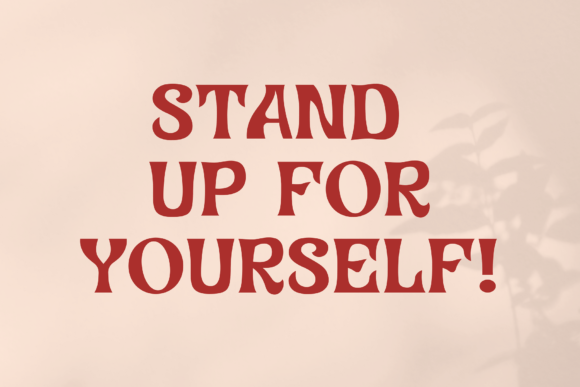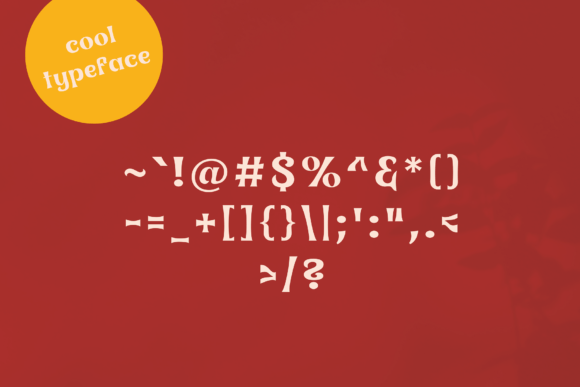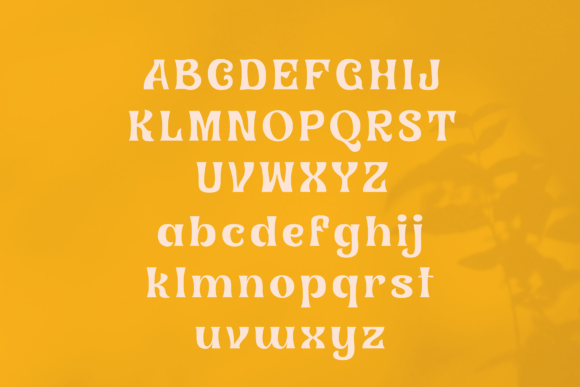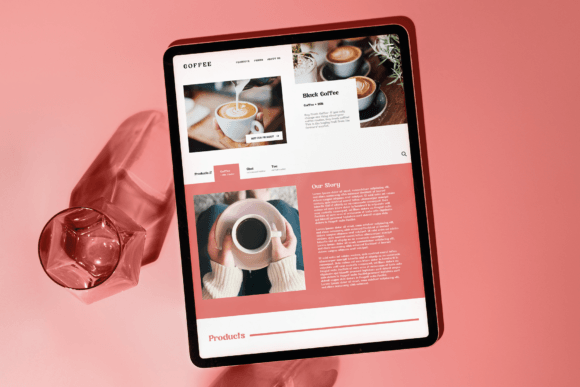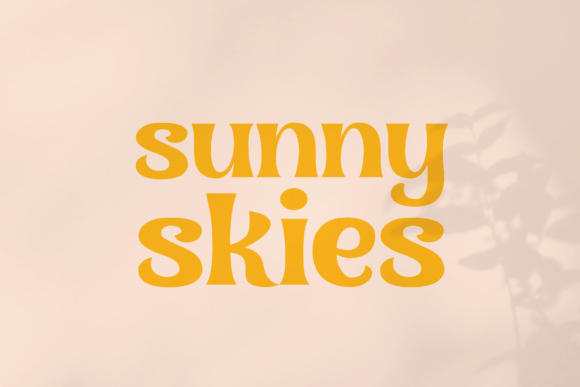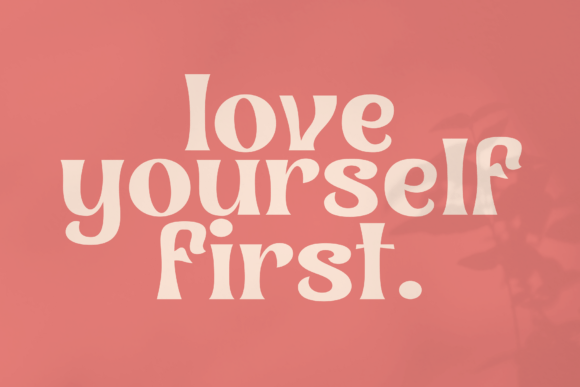
Introducing Electric Eden Font: A Retro Revival for the Modern Designer
Are you a designer or crafter looking for a font that embodies the spirit of the 1970s and 1980s? Look no further than Electric Eden, a strikingly retro font that oozes nostalgia and vintage vibes. This bold and vibrant font is reminiscent of the iconic rock festivals of the 1970s, and its design is a tribute to that era.
The Inspiration Behind Electric Eden
The Electric Eden font gets its name from the famous rock festival of the 1970s, an era that was marked by free-spiritedness, creativity, and a passion for music. The font’s design captures the essence of that time, with bold and vibrant curves that exude an electric energy. The letters have a hand-drawn feel, giving it a touch of personality and uniqueness that sets it apart from more traditional fonts.
Key Features of Electric Eden Font
- Retro Vibes: Electric Eden font is a perfect blend of retro and modern design elements, making it a great choice for designers who want to add a touch of nostalgia to their work.
- Hand-Drawn Feel: The font’s hand-drawn feel gives it a unique and personal touch, making it perfect for creative projects that require a bit of edginess and flair.
- Bold and Vibrant: The font’s bold and vibrant curves make it perfect for designing posters, album covers, and other creative projects that require a statement piece.
- Vintage Inspiration: The font’s design is inspired by the 1970s and 1980s, making it a great choice for designers who want to create work that is reminiscent of that era.
Uses for Electric Eden Font
Electric Eden font is perfect for a variety of creative projects, including:
- Poster Design: The font’s bold and vibrant curves make it perfect for designing eye-catching posters for concerts, festivals, and other events.
- Album Covers: The font’s retro vibes and hand-drawn feel make it a great choice for designing album covers that require a bit of edginess and flair.
- Branding: The font’s unique and personal touch makes it perfect for branding projects that require a bit of personality and character.
- Digital Art: The font’s bold and vibrant curves make it perfect for digital art projects that require a statement piece.
Why Choose Electric Eden Font?
There are many fonts available that offer a retro or vintage vibe, but Electric Eden font stands out from the rest. Here are just a few reasons why:
- Uniqueness: The font’s hand-drawn feel and bold and vibrant curves make it a unique and original choice for designers.
- Versatility: The font’s versatility makes it perfect for a variety of creative projects, from poster design to branding.
- Nostalgia: The font’s retro vibes and vintage inspiration make it a great choice for designers who want to create work that is reminiscent of the 1970s and 1980s.
Electric Eden font is a strikingly retro font that oozes nostalgia and vintage vibes. With its bold and vibrant curves, hand-drawn feel, and unique personality, it’s perfect for designers and crafters who want to add a touch of edginess and flair to their work. Whether you’re designing posters, album covers, or other creative projects, Electric Eden font is sure to transport you back in time to the heyday of rock and roll.